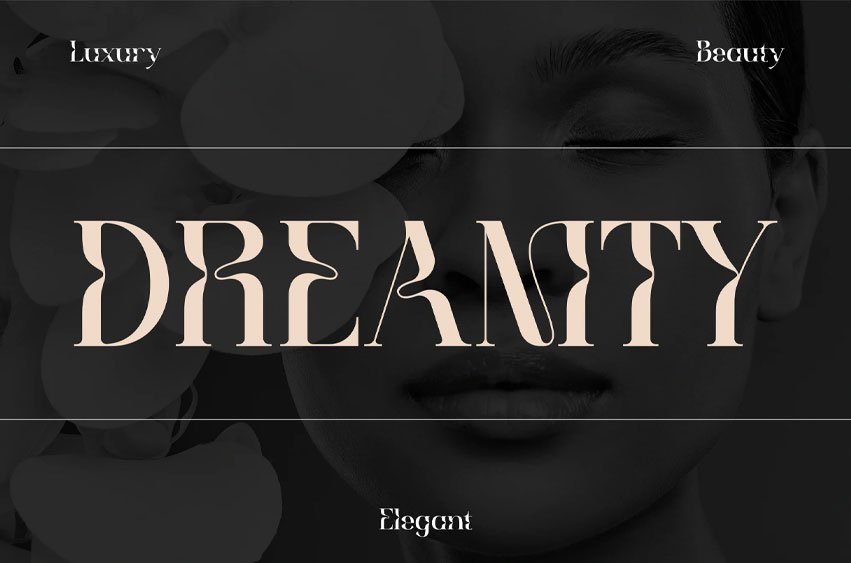
Dreamty Font is a decorative modern display font created for beauty branding, editorial design, and contemporary visual identities that need a striking yet refined appearance. Featuring sculpted letterforms, dramatic contrast, elegant curves, and distinctive decorative details, Dreamty transforms ordinary headlines into memorable design statements.
Its artistic structure combines modern sophistication with expressive styling, creating typography that feels fashionable, creative, and visually engaging. The carefully crafted shapes deliver strong personality while maintaining readability, making Dreamty an excellent choice for brands seeking a polished and distinctive voice. Whether used in beauty campaigns, skincare packaging, magazine layouts, or social media promotions, Dreamty provides the visual confidence needed to make every headline stand out.
In competitive markets, strong typography can define how a brand is perceived within seconds. Dreamty helps designers build captivating visual experiences through decorative details and contemporary styling that instantly attract attention. Perfect for branding, packaging, editorial projects, posters, social media content, and digital marketing, Dreamty creates a sophisticated atmosphere that feels intentional and professionally crafted. Its expressive forms help communicate quality, creativity, and confidence while strengthening brand recognition across every touchpoint.
For beauty labels, fashion-inspired products, lifestyle businesses, and creative agencies, Dreamty delivers the visual character needed to elevate modern branding projects.
Key Features : Decorative Contemporary Design
- Unique artistic letterforms with modern styling
- Elegant curves and sculpted terminals
- Creates strong visual distinction in headlines
Editorial-Inspired Character
- Designed for impactful titles and feature text
- Adds magazine-quality aesthetics to layouts
- Enhances visual hierarchy effortlessly
Branding-Focused Typography
- Helps establish memorable brand identities
- Strengthens packaging and promotional materials
- Creates a refined and professional appearance
Versatile Creative Applications
- Beauty branding
- Skincare packaging
- Editorial layouts
- Magazine covers
- Product marketing
- Social media graphics
- Posters and advertising
Attention-Grabbing Presence
- High-contrast details increase visual impact
- Decorative structure enhances recognition
- Ideal for brands seeking a distinctive look